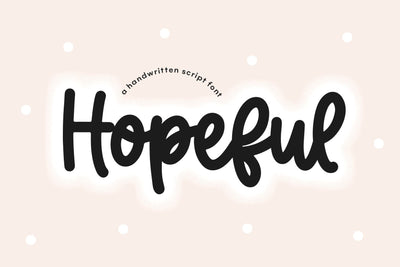
Hopeful - Handwritten Script Font
Hopeful is a handwritten script font.
This font is perfect for all of your farmhouse designs, cricut projects, svg files, mugs, shirts and more!